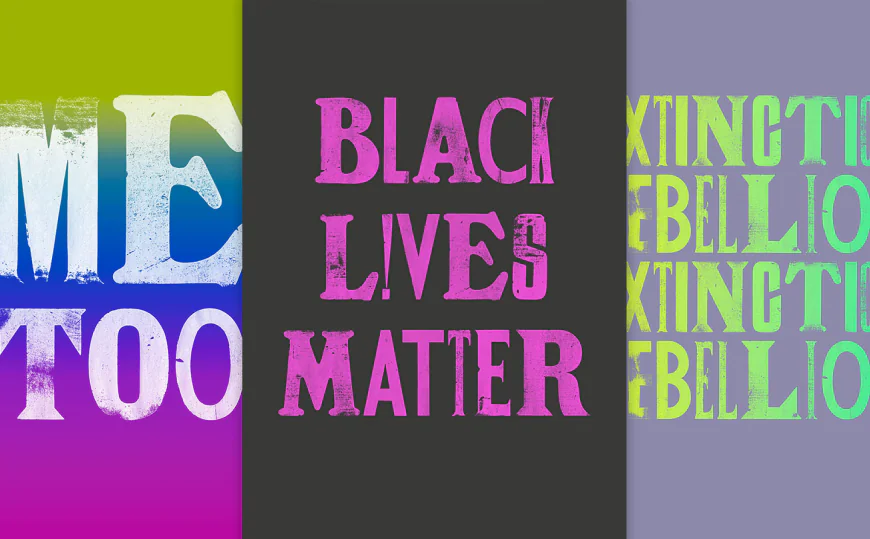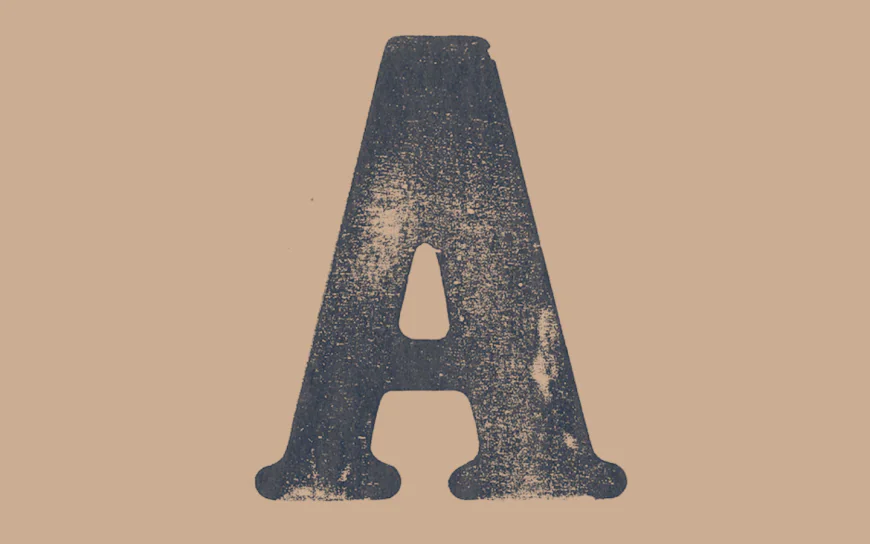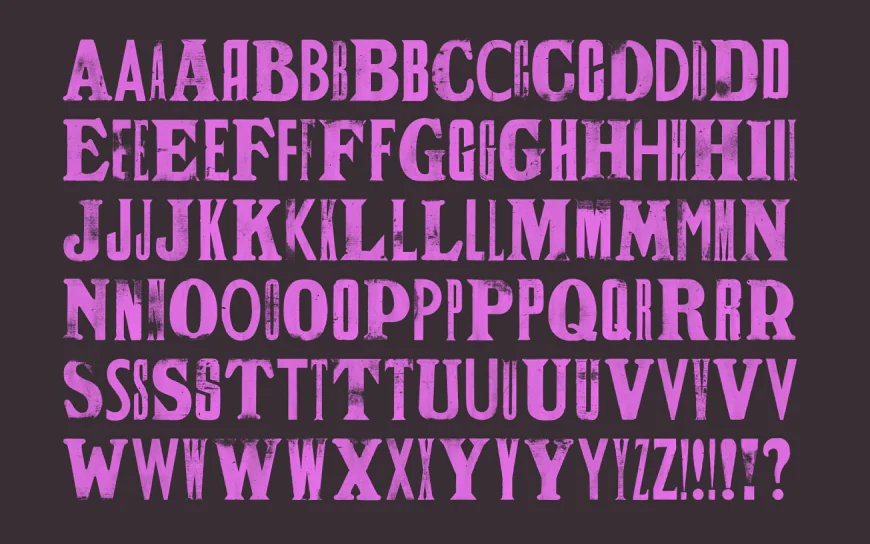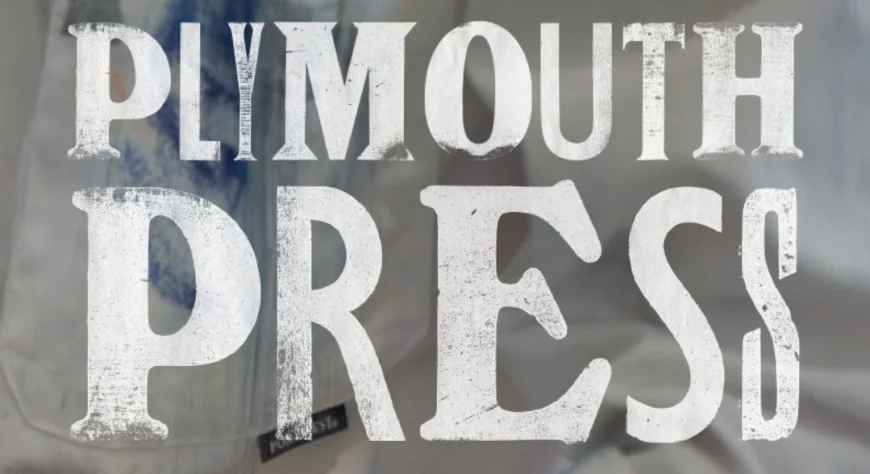
PlymouthPress is a unique OpenType-SVG font that brings the authentic texture and character of antique letterpress printing to your digital designs
PlymouthPress is a unique OpenType-SVG font that brings the authentic texture and character of antique letterpress printing to your digital designs. Each glyph has been digitized directly from real letterpress prints, ensuring a rich, organic, and handcrafted look. Perfect for vintage designs, posters, branding, and editorial projects.